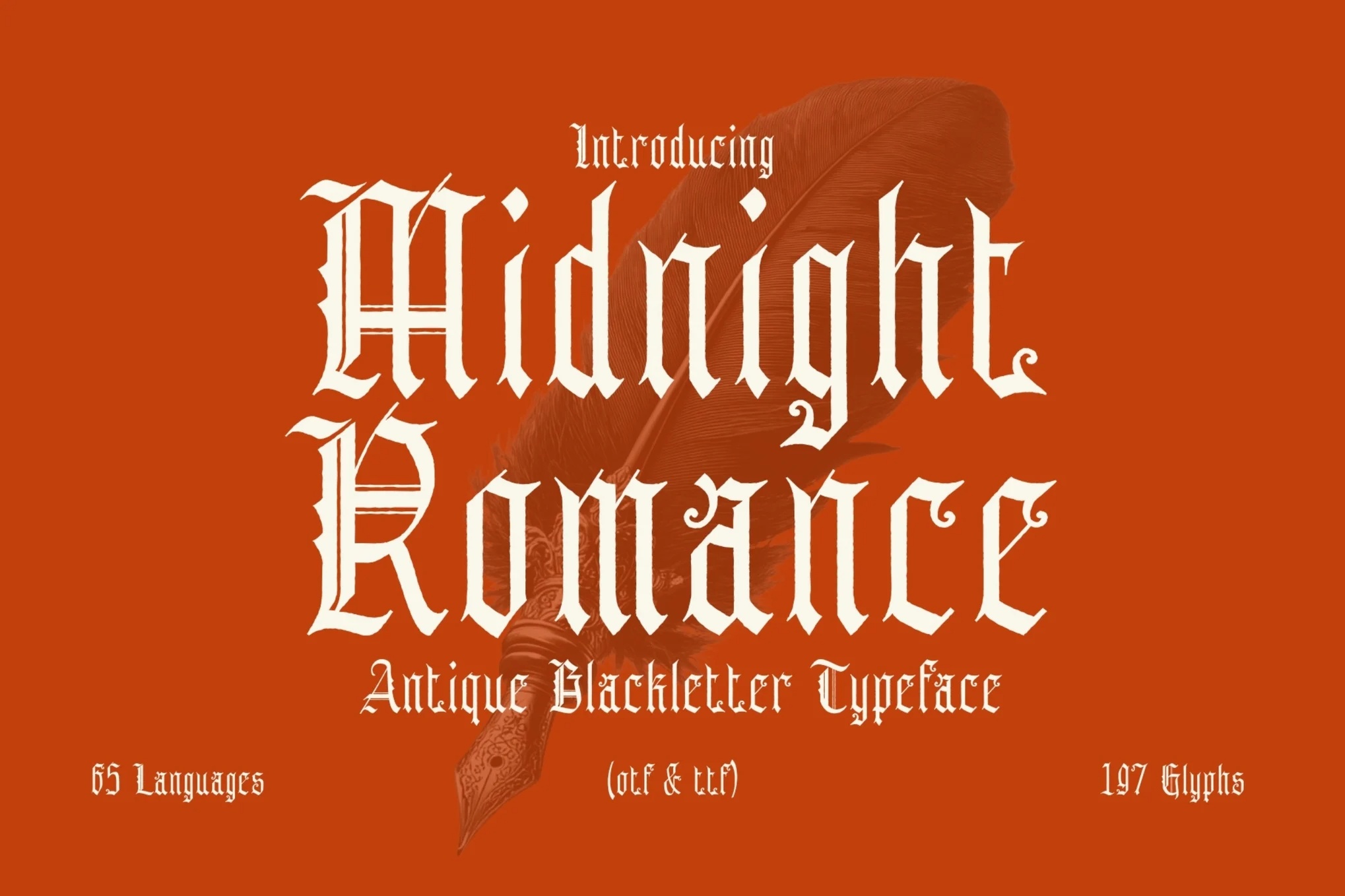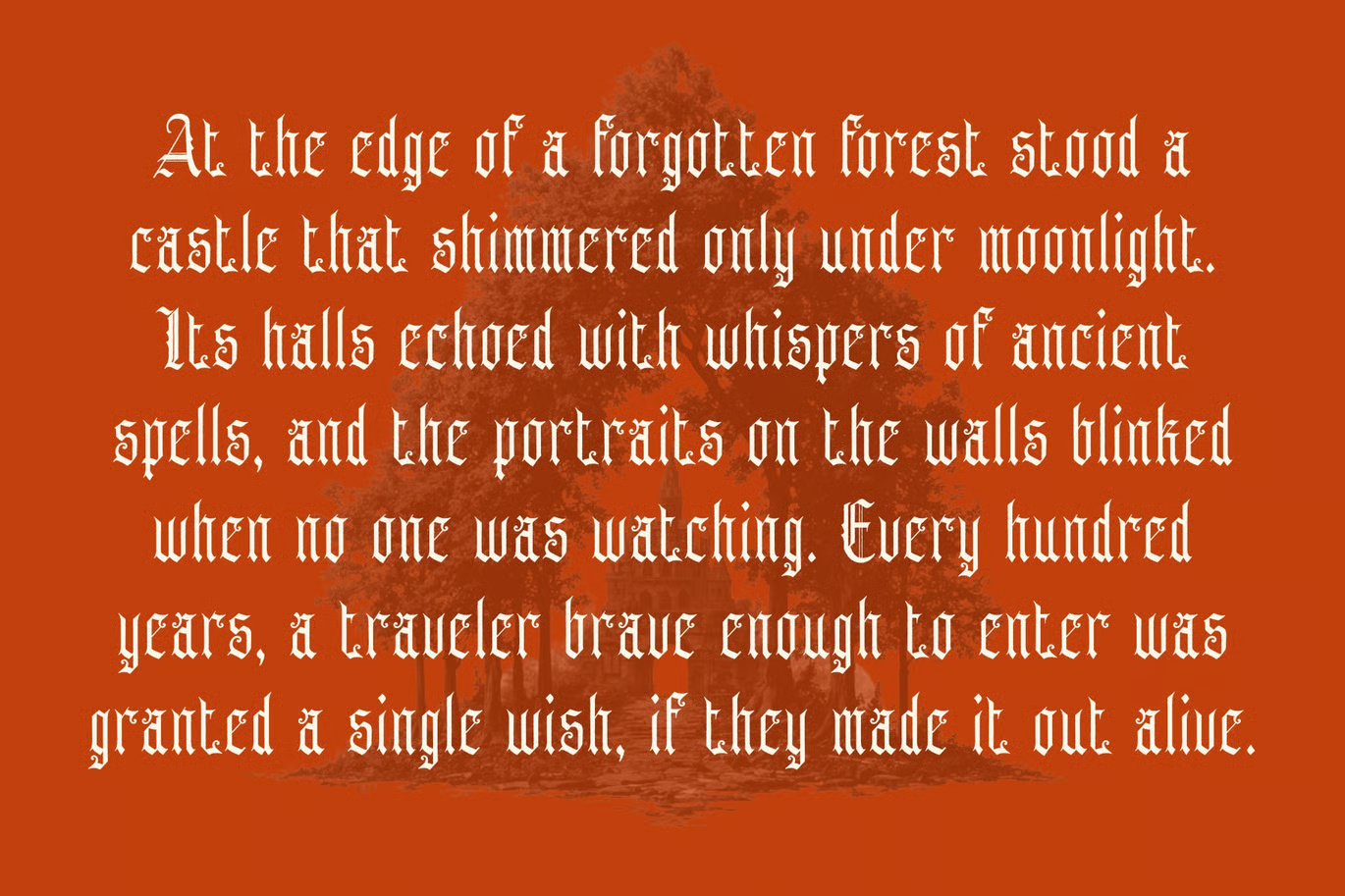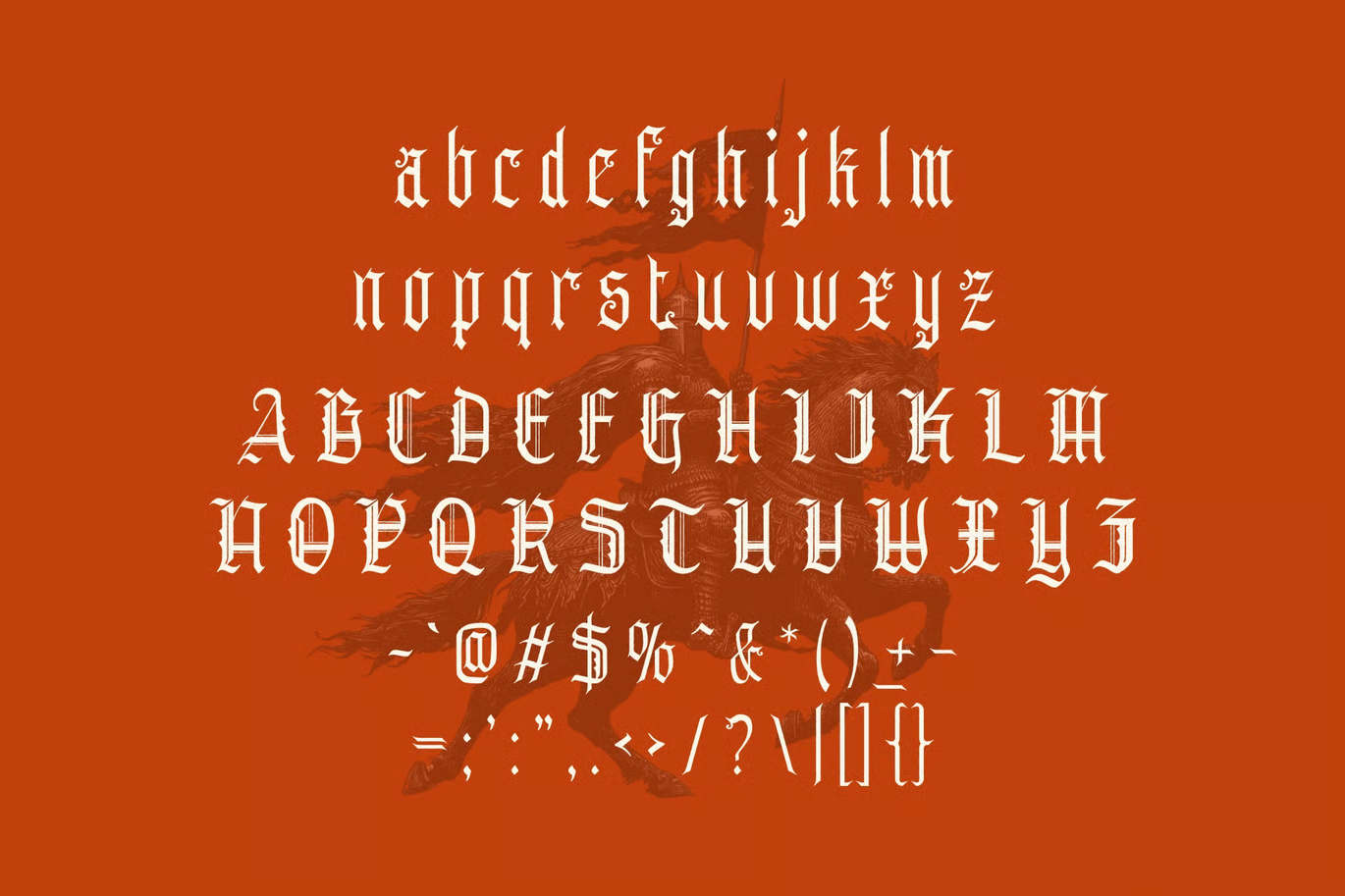
Midnight Romance, a captivating blackletter typeface inspired by the elegance of medieval manuscripts and vintage newspaper headlines. With sharp, refined serifs and exquisite detailing, this font evokes the grandeur of historic calligraphy while offering modern clarity and exceptional legibility.
Featuring 197 glyphs and multilingual support for over 65 languages, Midnight Romance is ideal for fantasy book covers, gothic branding, dark academia aesthetics, and any design project that craves old-world drama and sophistication. Let each letter carry the weight of history and romance in your creations.